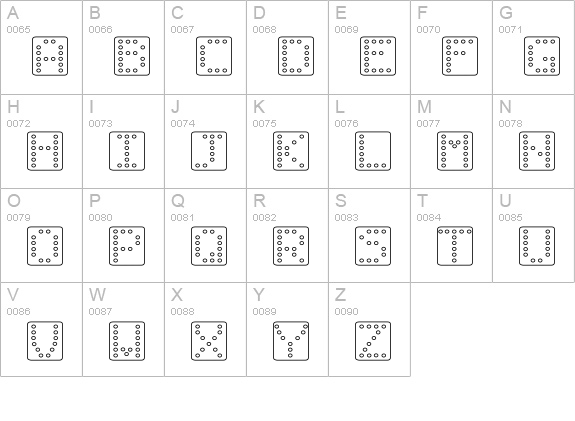
The Domino Square font is a modern and stylish typeface that exudes a sense of sophistication and elegance. With its clean lines and geometric shapes, this font is perfect for a wide range of design projects, from branding to editorial design. The unique square shape of the characters adds a touch of modernity and visual interest to any text. What sets Domino Square font apart is not only its sleek design, but also the fact that it is available for free download at FontsMarket.com. This means that you can easily access this high-quality font without any cost, making it a valuable addition to your font library. Whether you are a designer, a student, or simply a font enthusiast, Domino Square font is a must-have for anyone looking to elevate their design projects with a touch of sophistication and style.